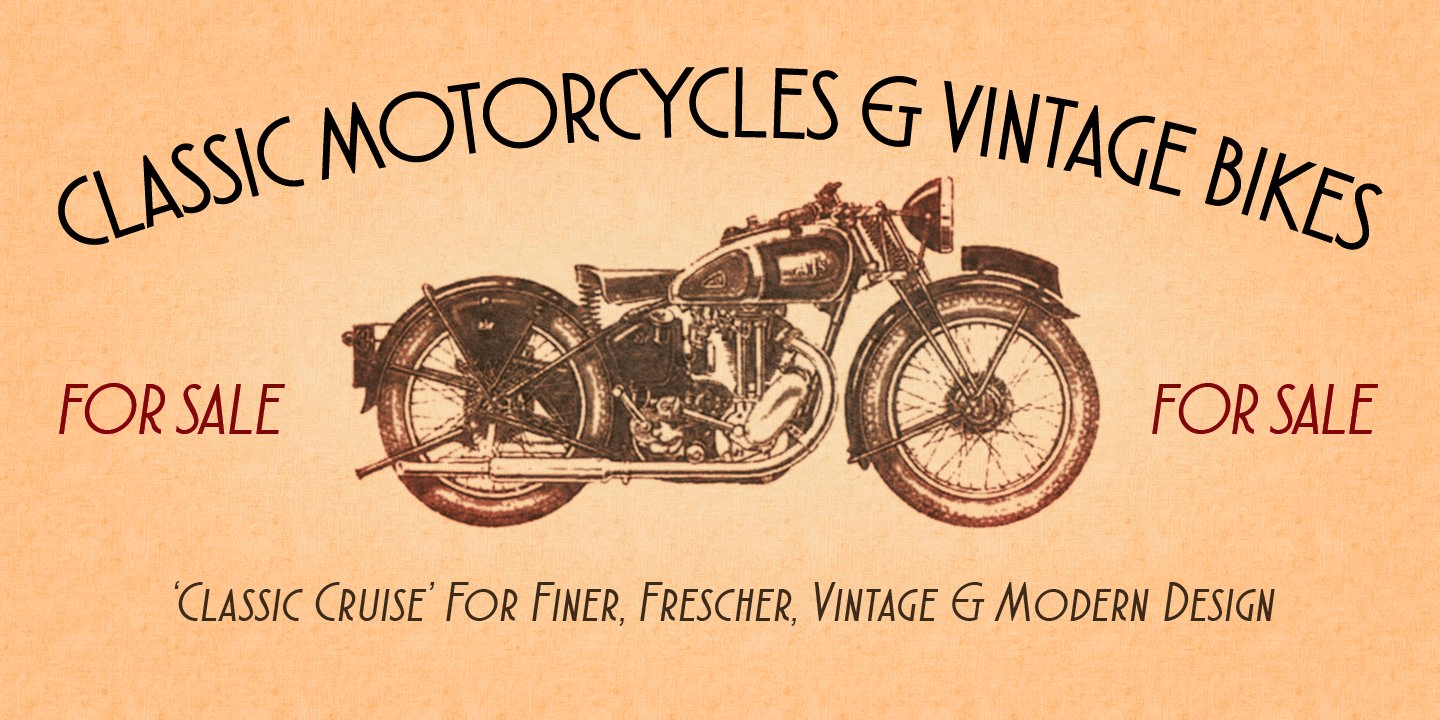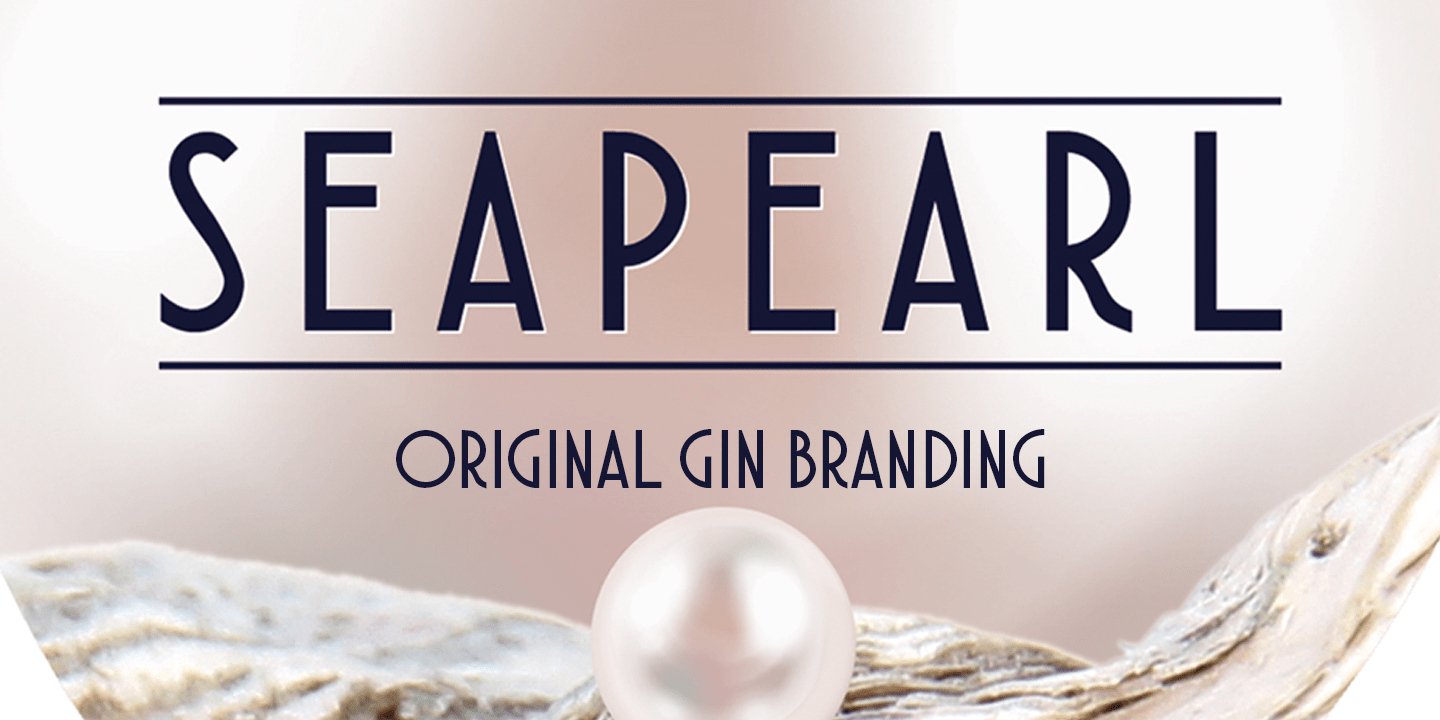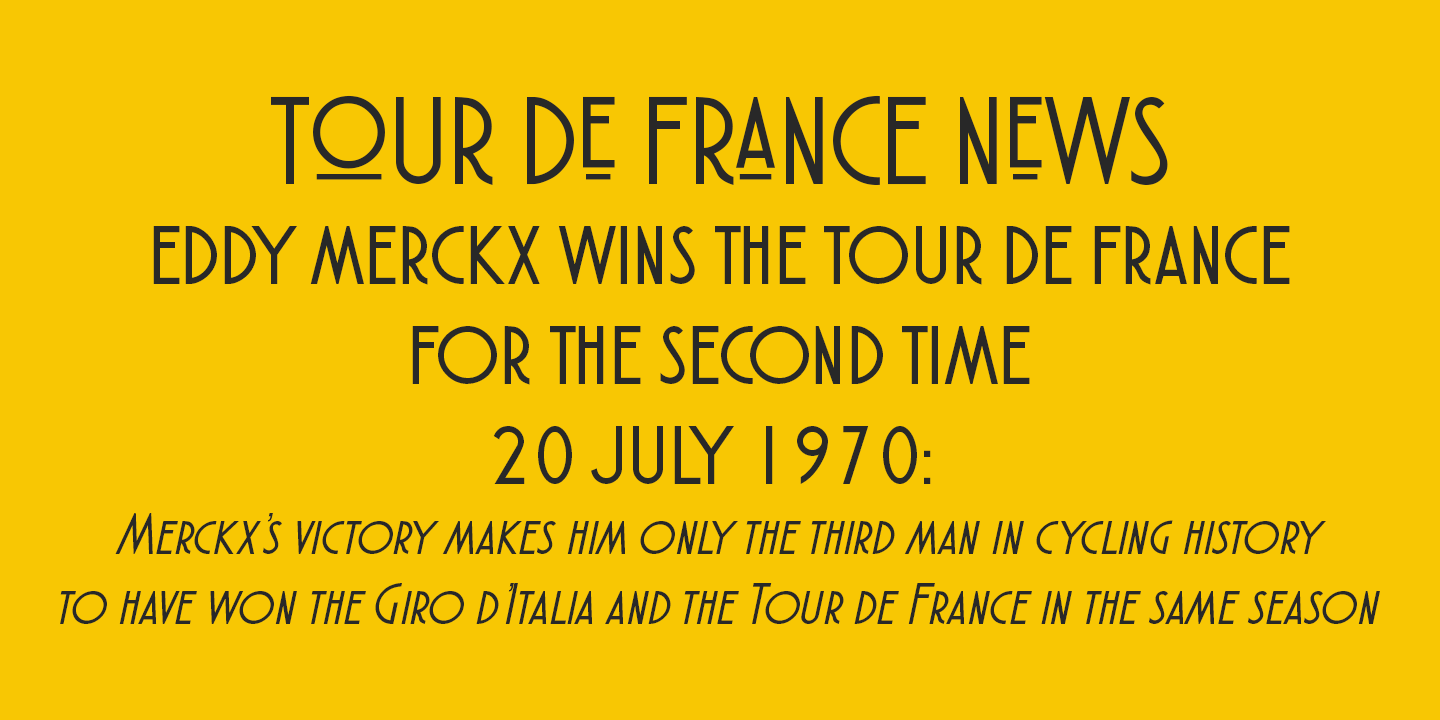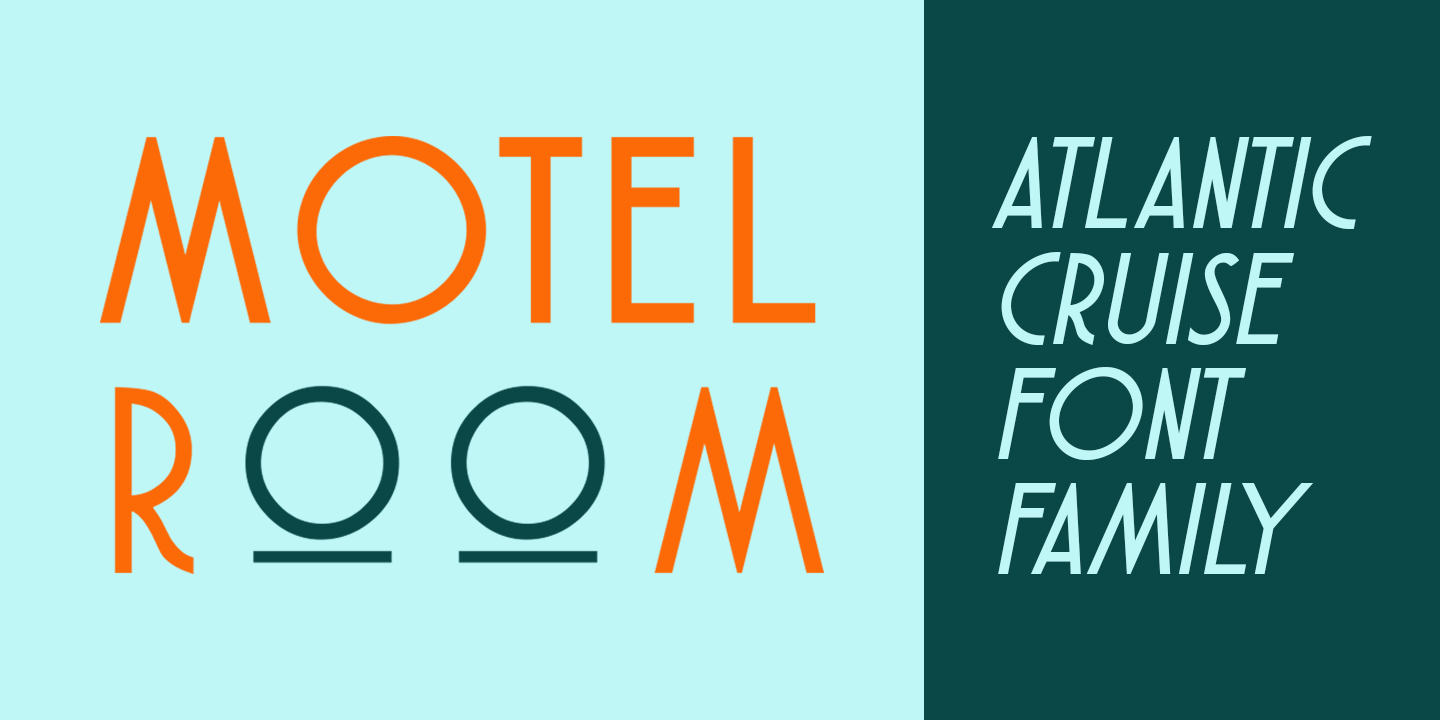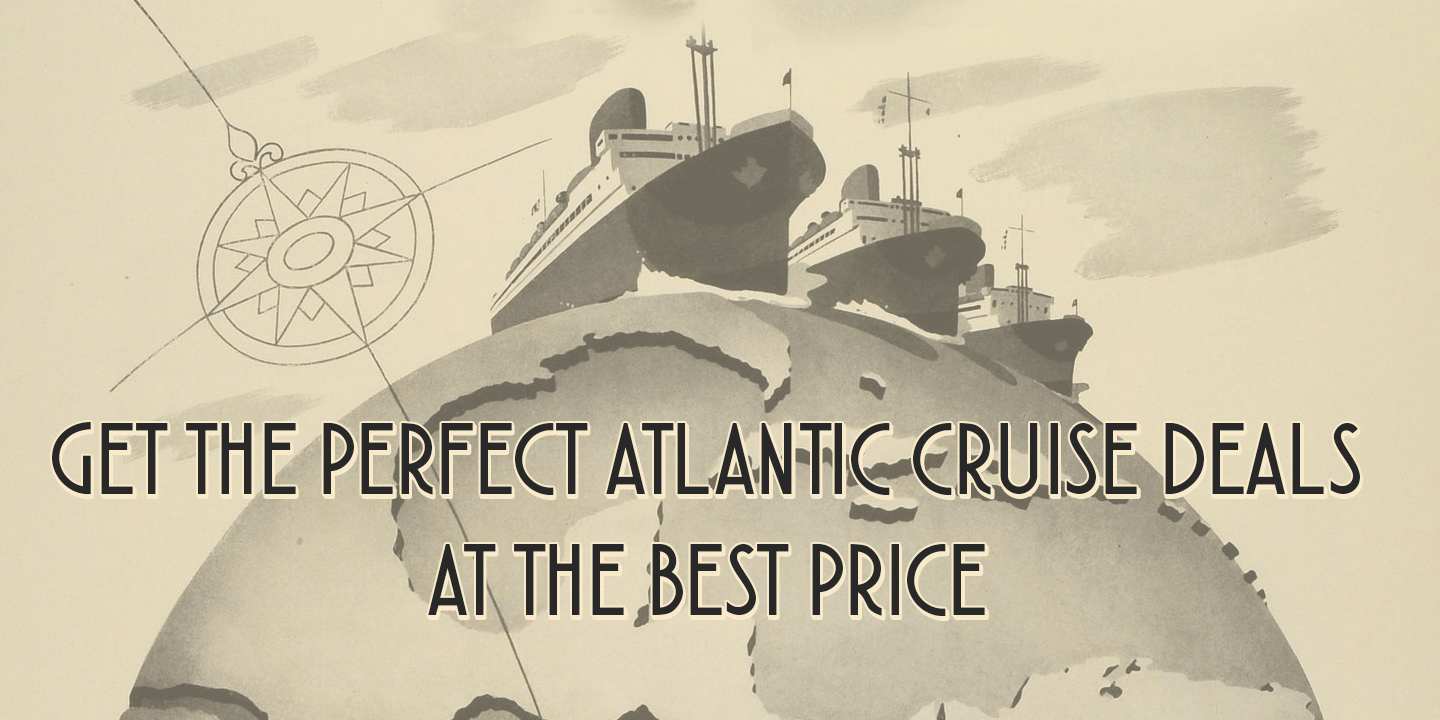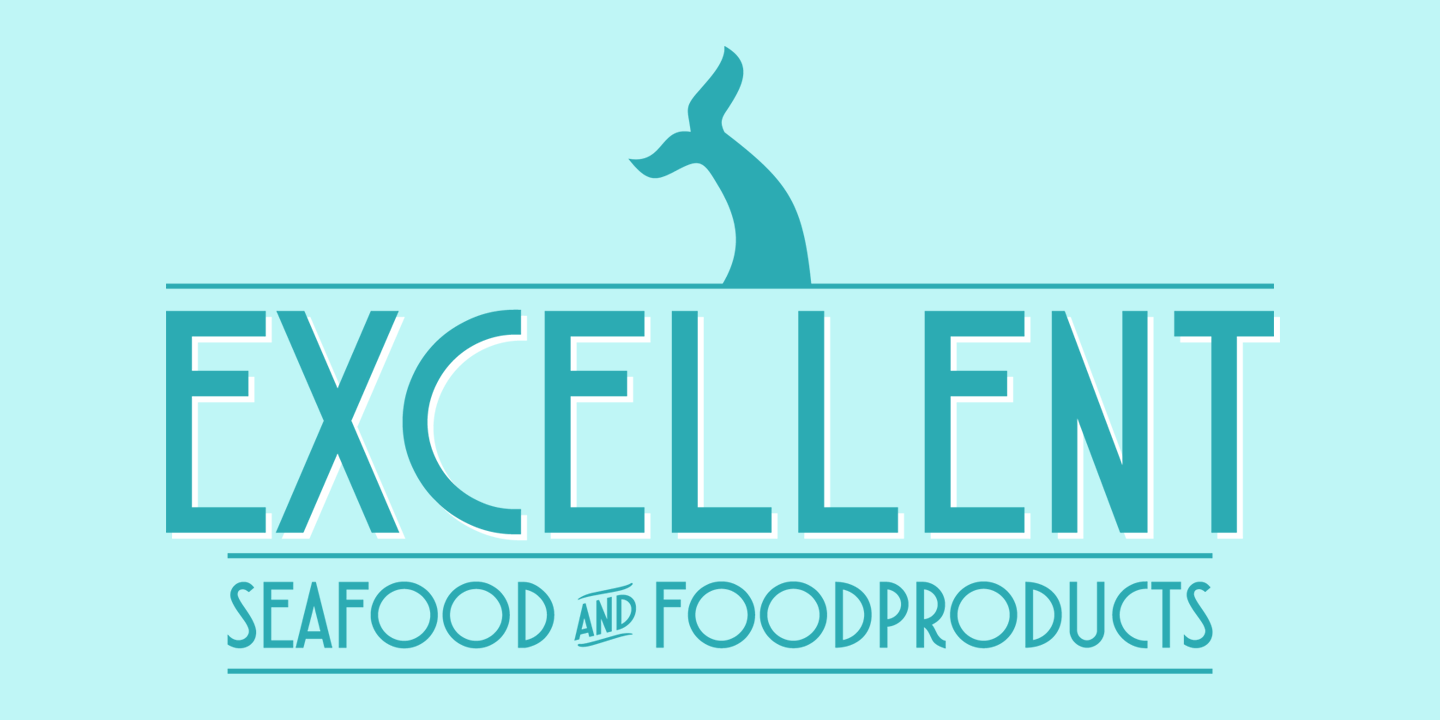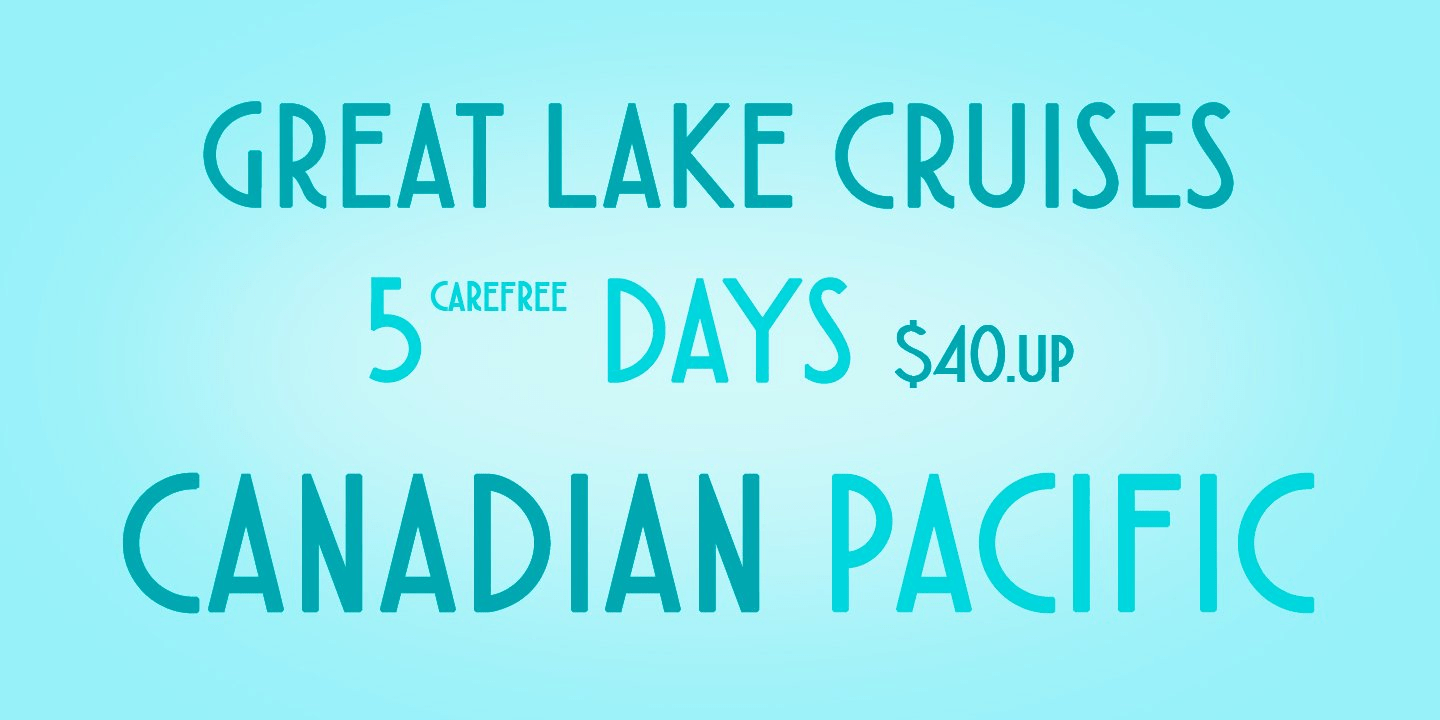
Atlantic Cruise
Font Family by Kustomtype
Kustomtype's 'Atlantic Cruise' font is one of the fonts that was used in the 50's for travel and cruise posters. It shows the typical look of that era but has been refined. The Atlantic Cruise fonts are based on geometric forms which have been optically corrected for a better legibility. Cruise suites perfectly well for your graphic design applications, ranging from editorial and corporate design to all your other graphic work. The Cruise family is coordinated into letterforms, metrics, and weights to work better together. Why still looking for foreign or strange types for your posters, headtext, editoral design, magazines, etc.? Enjoy your Cruise!